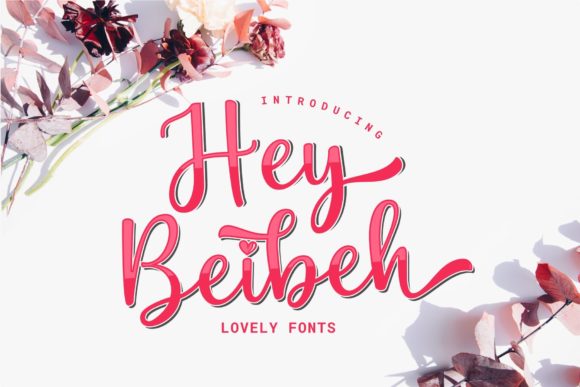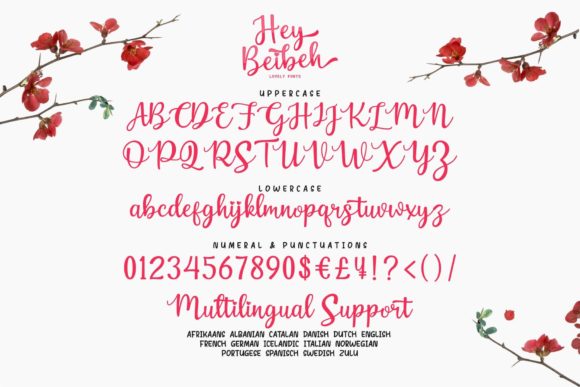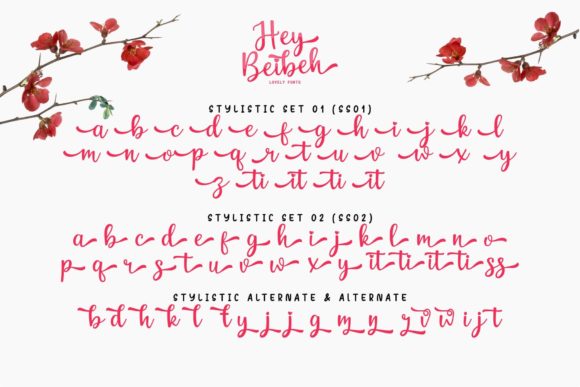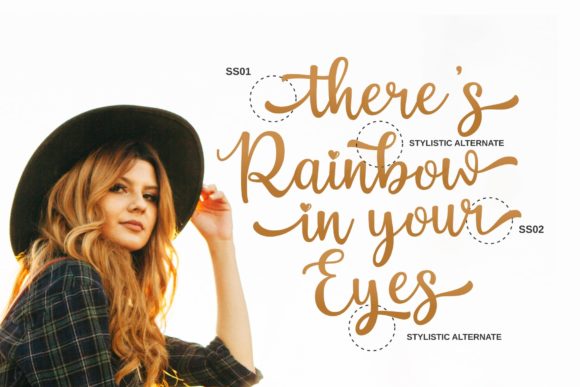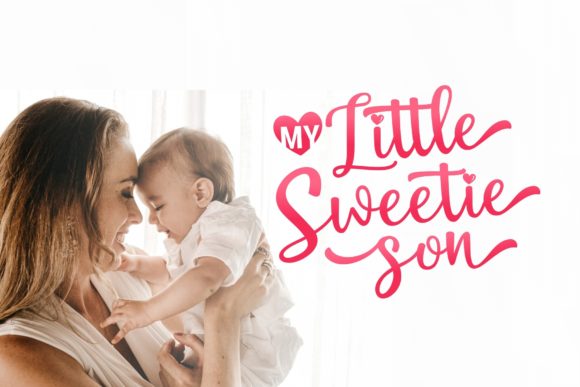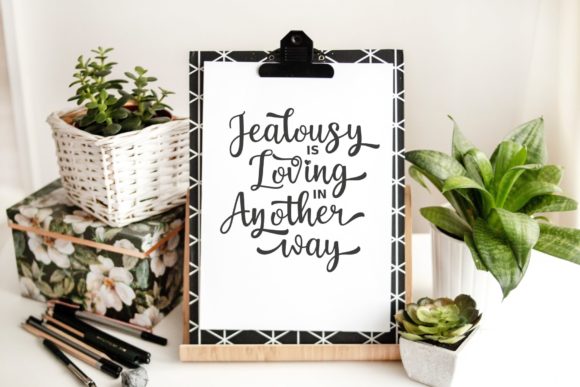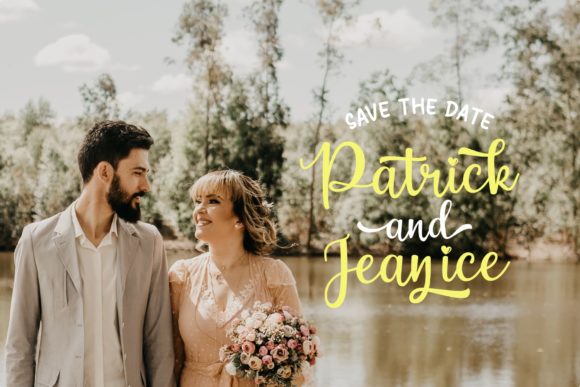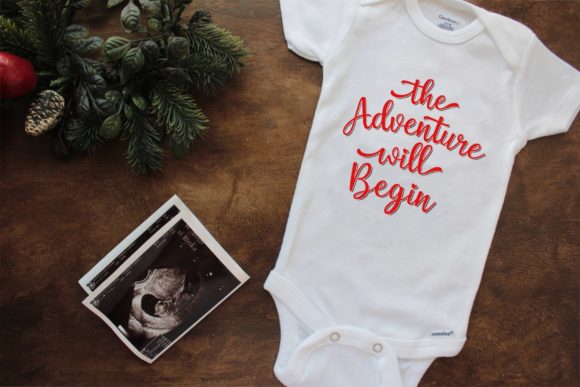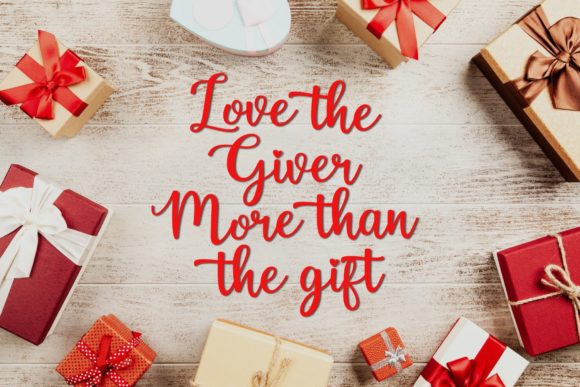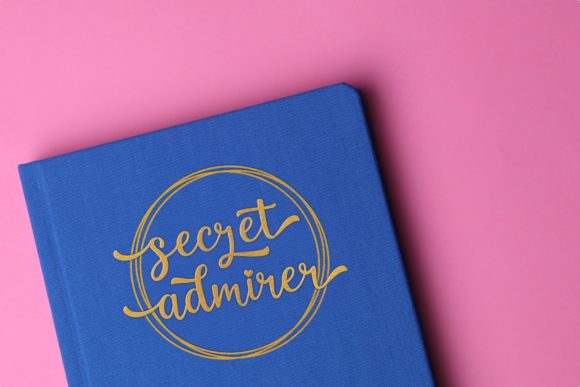
Hey Beibeh Font
About Hey Beibeh Font
Hey Beibeh embodies fun, romance and authenticity. This enchanting handwritten font will turn any creative idea into a true standout.